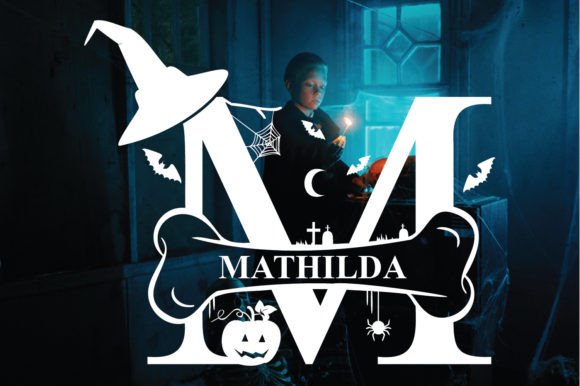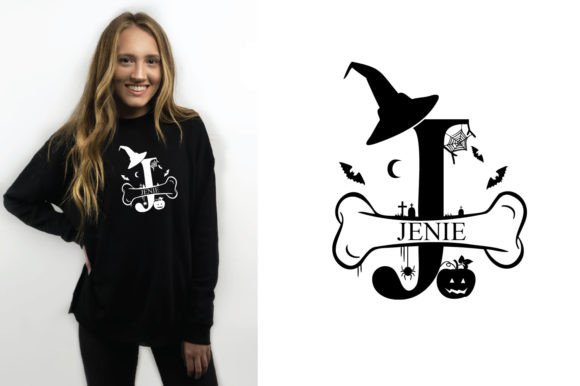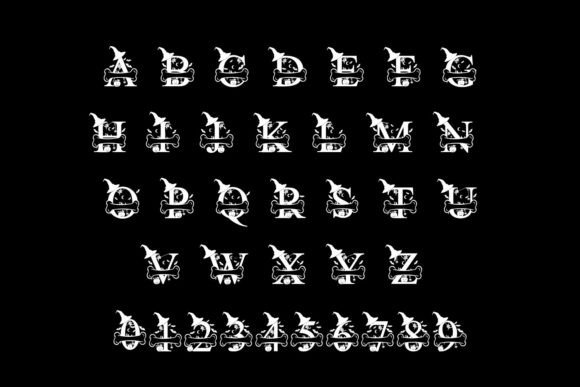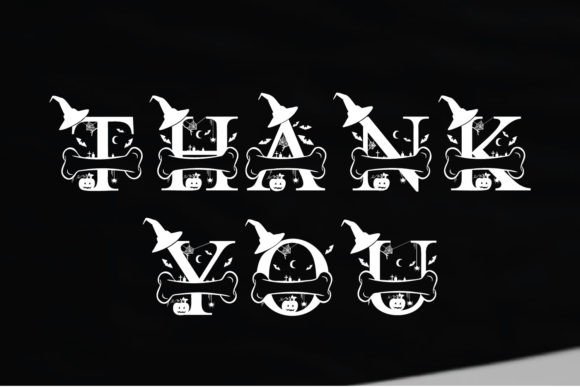
Introducing Alloween Font: The Ultimate Decorative Monogram Font for Spooky Designs
Are you a designer, crafter, or DIY enthusiast looking for a unique and captivating font to elevate your Halloween-themed projects? Look no further than Alloween Font, a charming decorative monogram font that’s sure to cast a spell on your audience. With its adorable and playful design, Alloween Font is the perfect addition to your font collection, offering endless possibilities for creative expression.
What Makes Alloween Font So Special?
Alloween Font is a carefully crafted decorative monogram font, designed specifically with Halloween in mind. Its distinctive look and feel are guaranteed to add a touch of whimsy and fun to your designs, setting them apart from the rest. Whether you’re working on Halloween-themed shirts, crafts, posters, or any other project, Alloween Font will instantly enhance your creations and leave a lasting impression.
Key Features of Alloween Font
- Cute and Playful Design: Alloween Font boasts an irresistibly cute and playful design that’s sure to delight both kids and adults alike.
- Decorative Monogram Style: As a decorative monogram font, Alloween Font offers a unique and stylish way to add a personal touch to your projects.
- Halloween-themed: With its spooky-chic design, Alloween Font is the perfect fit for Halloween-themed designs, but its versatility also makes it suitable for other autumnal and seasonal projects.
- Instantly Enhances Projects: Add Alloween Font to your project and watch it transform into a stunning and eye-catching design that grabs attention.
Use Cases for Alloween Font
Alloween Font is an incredibly versatile font that can be used in a wide range of projects, including:
- Halloween Shirts and Apparel: Create spooky-chic t-shirts, hoodies, and other apparel that will make you stand out from the crowd.
- Crafts and DIY Projects: Add a personal touch to your Halloween crafts, such as decorations, cards, and gift tags.
- Posters and Flyers: Design eye-catching posters and flyers for Halloween events, parties, or promotions.
- Digital Designs: Use Alloween Font in your digital designs, such as social media graphics, blog posts, and email newsletters.
Tips for Using Alloween Font
To get the most out of Alloween Font, here are some tips to keep in mind:
- Experiment with Colors: Play around with different colors to find the perfect combination that matches your project’s theme and style.
- Mix and Match Fonts: Combine Alloween Font with other fonts to create a unique and visually appealing design.
- Pay Attention to Size and Scale: Adjust the font size and scale to ensure that your design looks balanced and harmonious.